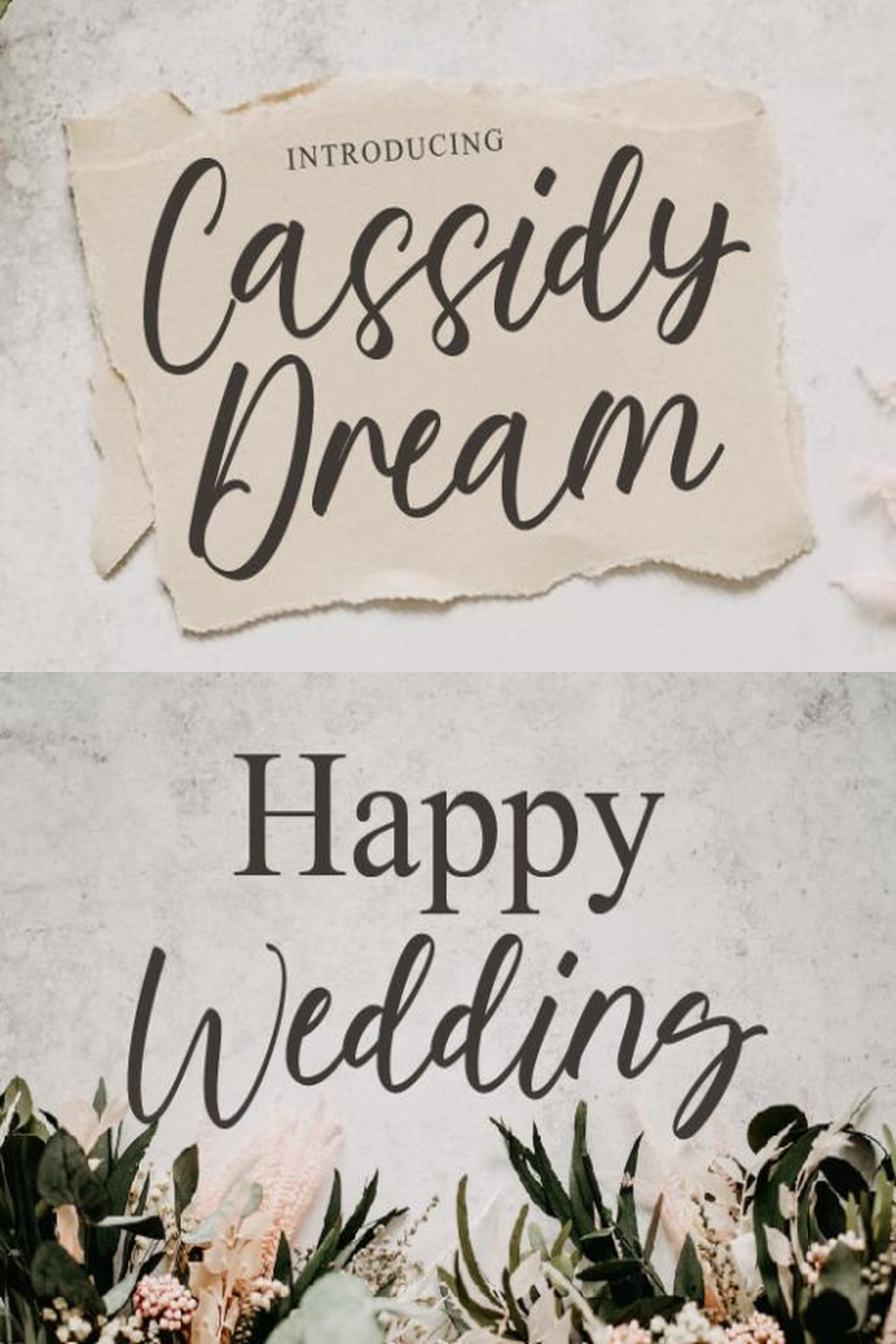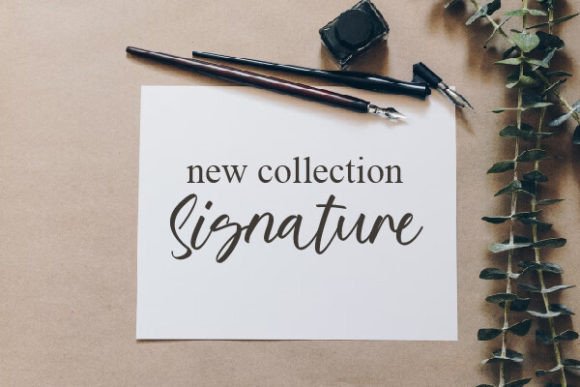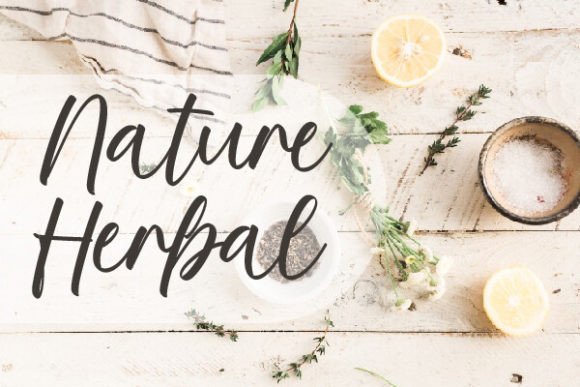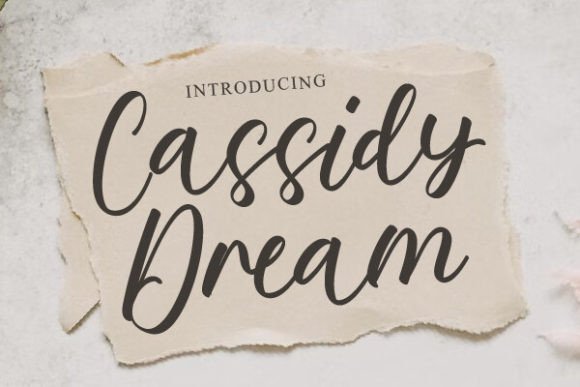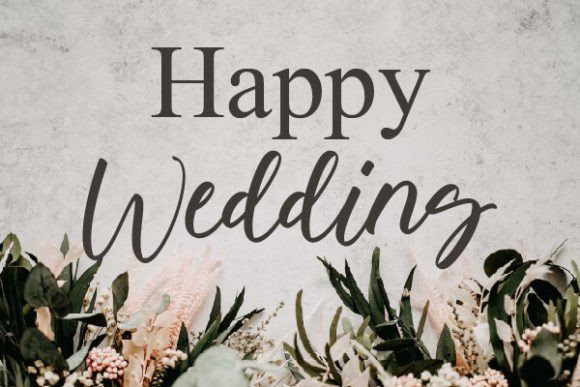
Cassidy Dream Font
About the Cassidy Dream Font
Explore the possibilities with Cassidy Dream Font, a font that offers both beauty and functionality. Cassidy Dream is a charming handwritten font that adds a personal touch to your projects. With its graceful strokes and friendly appeal, it brings a dreamy quality to your text. Ideal for a variety of creative endeavors, from invitations to quotes, Cassidy Dream adds a touch of warmth and character. Embrace the handwritten charm and give your designs a friendly and approachable feel with Cassidy Dream font.
Cassidy Dream Font Usage Examples